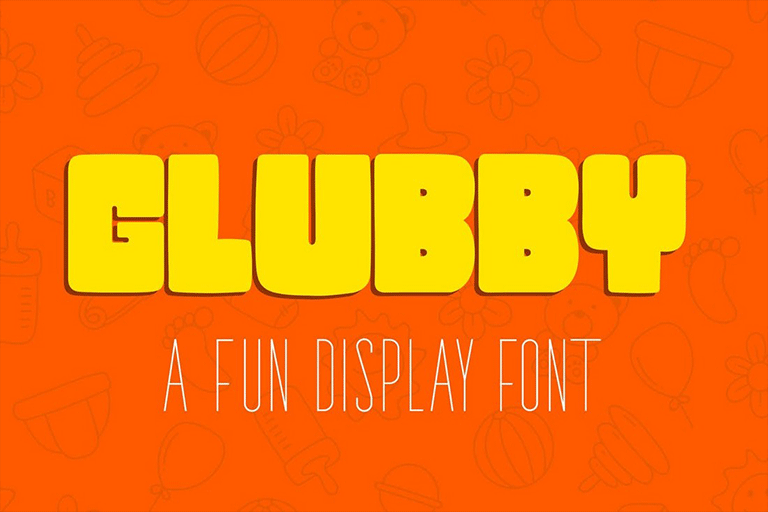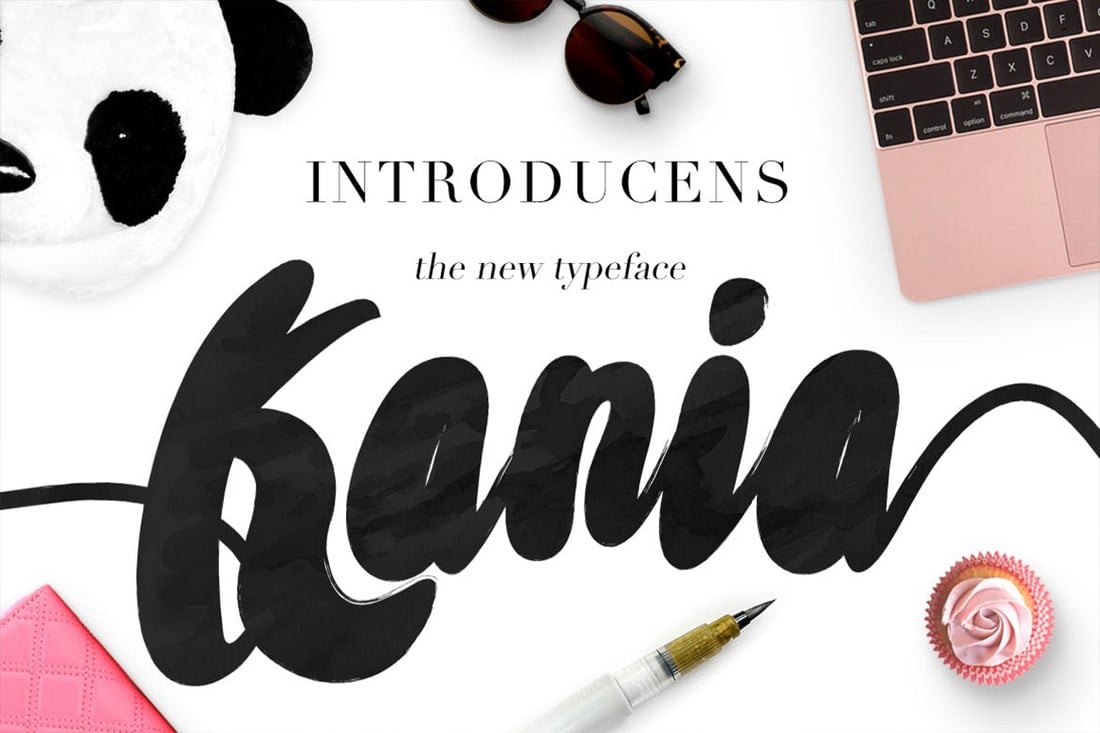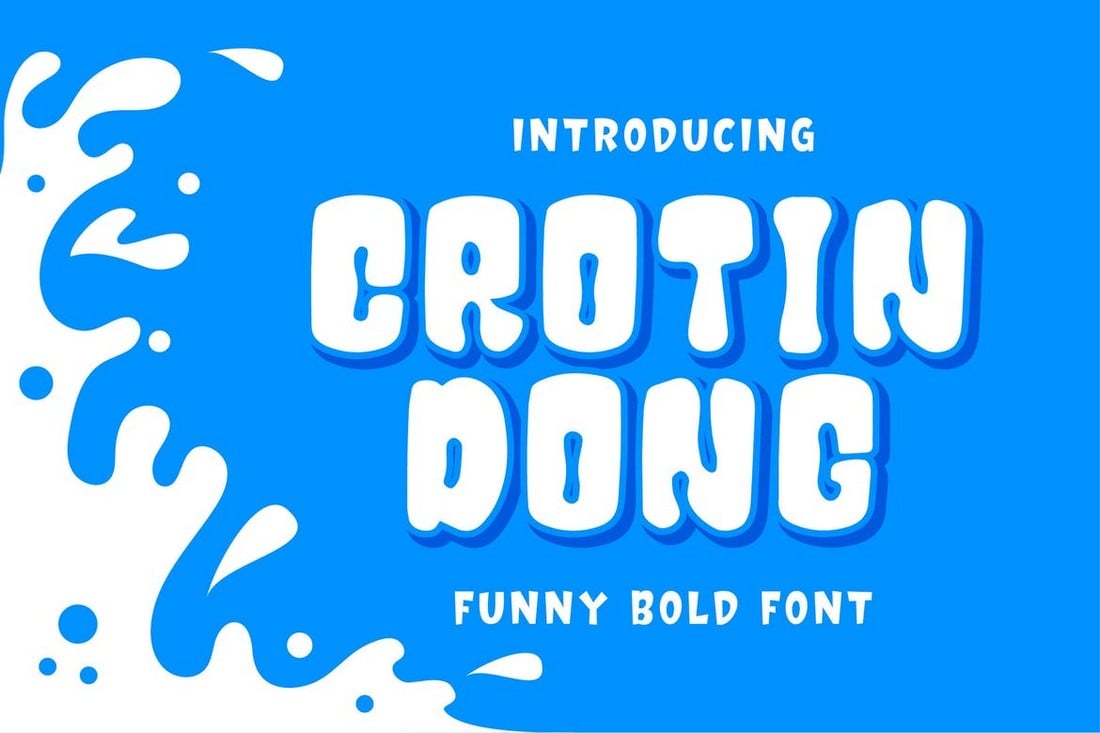
Chunky and chubby fonts are a great choice for designing fun and creative titles for all kinds of designs. In this post, we bring you a selection of the best chunky fonts with many different styles.
Due to their unique style of design, chunky fonts are most suitable for creative, fun, and entertaining designs. Our list of chunky fonts includes different types of fonts for designing everything from posters to greeting cards and much more.
Start exploring the list to find the right chunky font for your next project, and be sure to read through our tips for choosing (and using) chunky fonts for some handy design advice!
This chubby font features the perfect combination of fun and creativity to instantly grab anyone’s attention.
The BoldenVan font features a bold design with chunky characters that’s simply ideal for children’s designs such as posters and greeting cards.
The attractive chunky characters are what make this font truly one of a kind. You won’t find another font like this one anywhere.
Outlooks is a painstakingly created font featuring a chunky handwritten design that will look good on a variety of branding and packaging projects. It comes with a full set of uppercase, and lowercase letters, numerals, punctuation, accents, alternates, and ligatures.
Big Jelly is a bold, and thick font that will help you create fun and playful designs, and bring a smile to the beautiful faces of your target audience. It can be used for headlines, posters, flyers, logos, book covers, and product packaging.
Nick Nock is a blob and chubby typeface that comes in 2 different styles. It’s an incredibly unique, and one of its kind font guaranteed to work beautifully for businesses looking to create designs that instantly grab the audience’s attention.
Block Party is a fun, and happy-go-lucky typeface that will bring a fresh, and child-like feel to your creative projects. It’s a stunning option that can be often found whenever a list of the best chunky fonts is made.
Here we have Wonkids, a psychedelic chunky font perfectly fitting to a pool of kids-themed design projects. Use this unique font with confidence, and see for yourself the world of a difference it makes to your dull, boring projects.
At a glance, this chubby font will remind you of posters and banners at movie theaters. And it’s made just for that type of design and more. The font comes with a regular, outline, and a few other styles as well.
Spot is a unique chubby font that comes in 4 different styles featuring regular and outline typefaces. The font also includes a web font version as well as OpenType and TrueType versions.
If you’re working on a design related to kid’s entertainment, cartoons, or book covers, this font is perfect for you. It features a unique chunky character design that will make your designs stand out from the crowd.
Chunky fonts are not just for children’s designs. This elegant font is proof of that. It features a set of chubby characters that are suitable for professional designs. It also includes 100 ligatures as well.
Colombo is another modern chunky font with a professional design. It’s great for crafting logos, titles, and website headers for various business and creative projects. The font comes in multiple formats including SVG and web fonts.
Foo is a beautiful free font featuring a unique style of characters. It includes a fun and creative design that makes it suitable for entertainment-related designs as well as children’s designs.
This free font features a chubby character set with a graffiti style mixed into the design. It’s perfect for crafting titles and headings for urban and hipster-style designs. The font is free to use with your personal projects.
This is a fun and slightly chunky font that features a design inspired by comic book splash panels. The font is ideal for designing all kinds of children’s designs such as posters, banners, book covers, and more.
This fun and creative font come with a unique and inconsistent character design that will help give your designs a handmade look and feel. The font is perfect for both creative and professional work.
An adorable chunky font you can use to craft titles and headings for children’s designs. This font comes in both OpenType and TrueType versions. It also includes an Illustrator vector file as well.
Mickmickey is another creative chunky font that comes with uppercase and lowercase characters. According to its designer, this font looks great in designs when used with bright colors.
Borsok is a creative free font that comes with chunky character design. It includes multilingual support and you can use it for free with personal and commercial projects.
This is a playful chunky font you can use to craft various styles of fun and creative titles for posters, flyers, and greeting cards. The font is free to use with your personal projects.
Rono is an elegant font that comes with chunky character design. This font is perfect for designing stylish titles and headings for posters and websites.